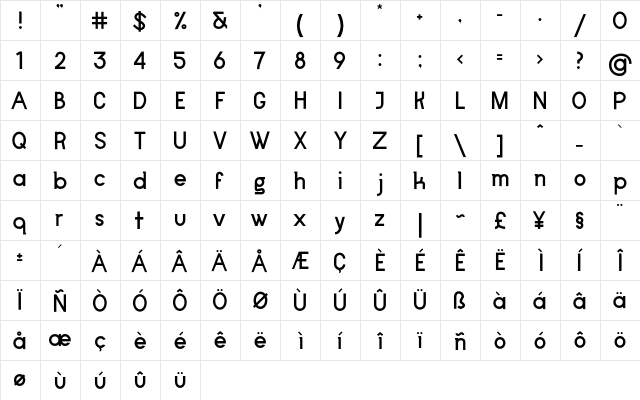
Narrenschiff Regular
| Designer | Jelmer R. |
Design Context for Narrenschiff Typeface
Narrenschiff is a composed and adaptable typeface that performs quietly and consistently across a wide range of design contexts.